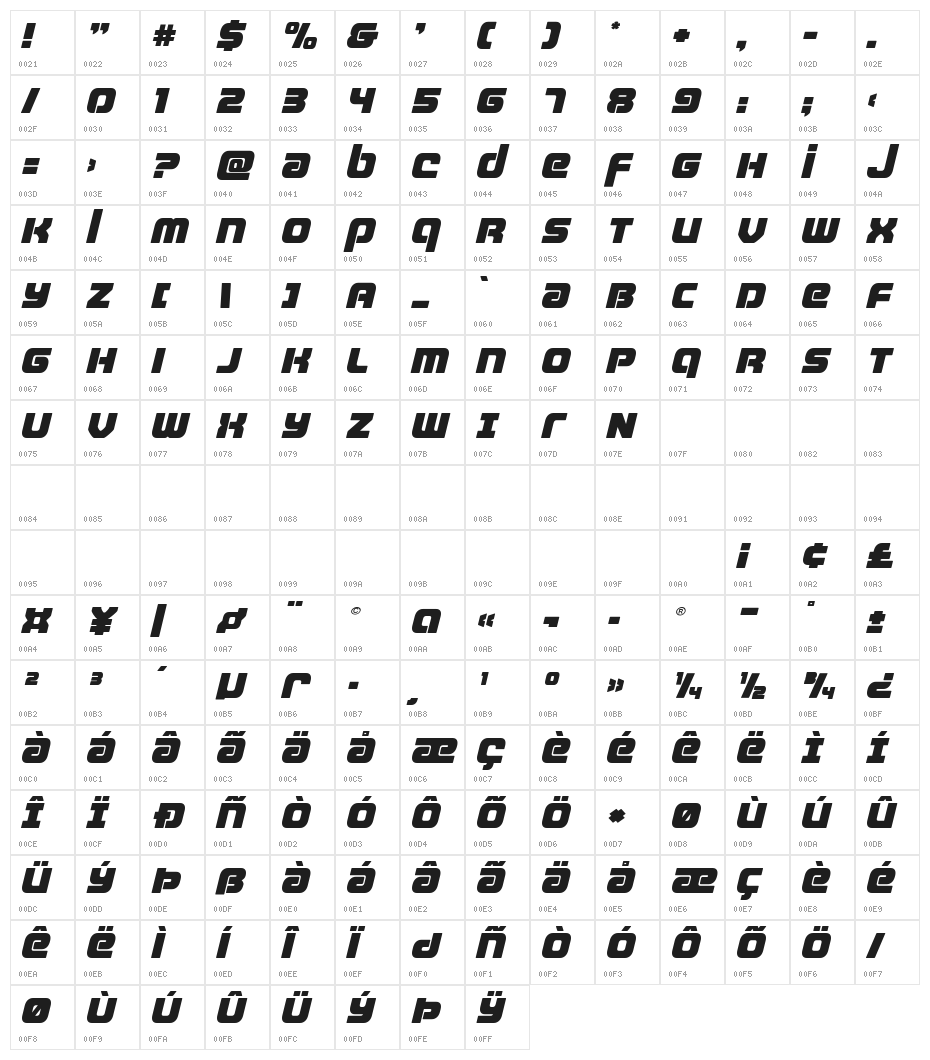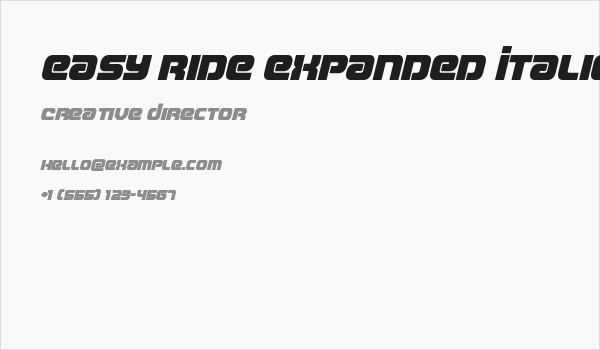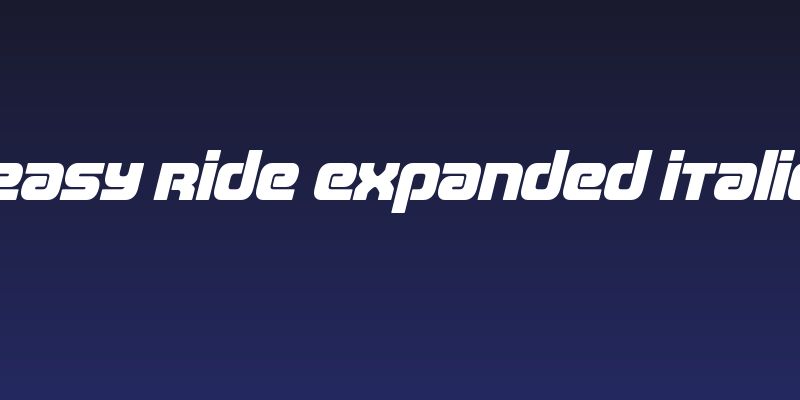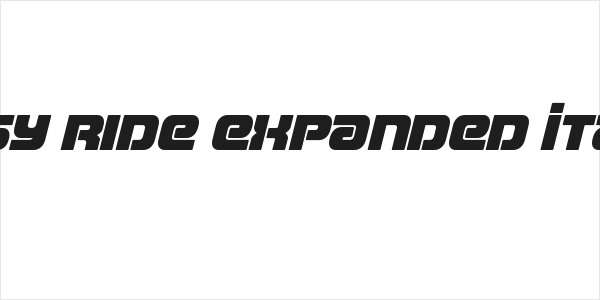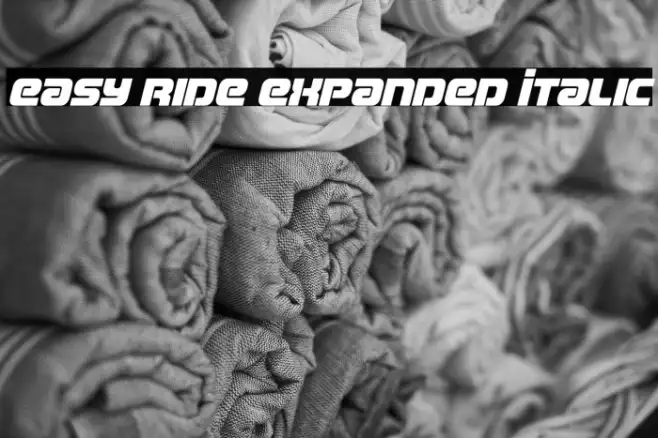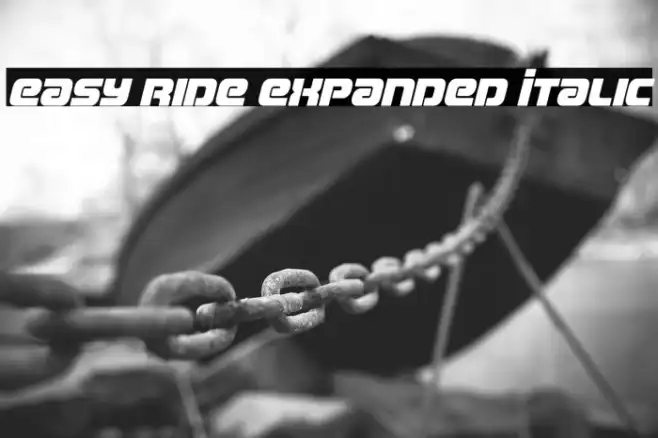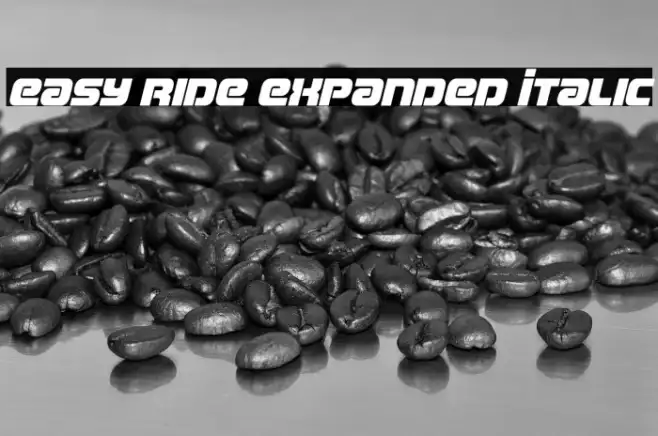
Easy Ride Expanded Italic Font
Easy Ride Expanded Italic Description
This font features a bold, modern style with a distinct italic slant, giving it a dynamic and energetic appearance. The characters are expanded, providing a wide stance that enhances readability while maintaining a strong visual impact. The strokes are consistent in weight, contributing to a cohesive and uniform look across all characters. The design is sleek and contemporary, making it suitable for projects that require a forward-thinking and progressive aesthetic. The font's geometric shapes and smooth curves add to its futuristic appeal, making it ideal for technology-related branding or advertising.
| Use Case | Logos, Headlines, Branding |
| Proposed Projects | Ideal for technology branding, sports team logos, dynamic advertising campaigns, and futuristic design projects. |